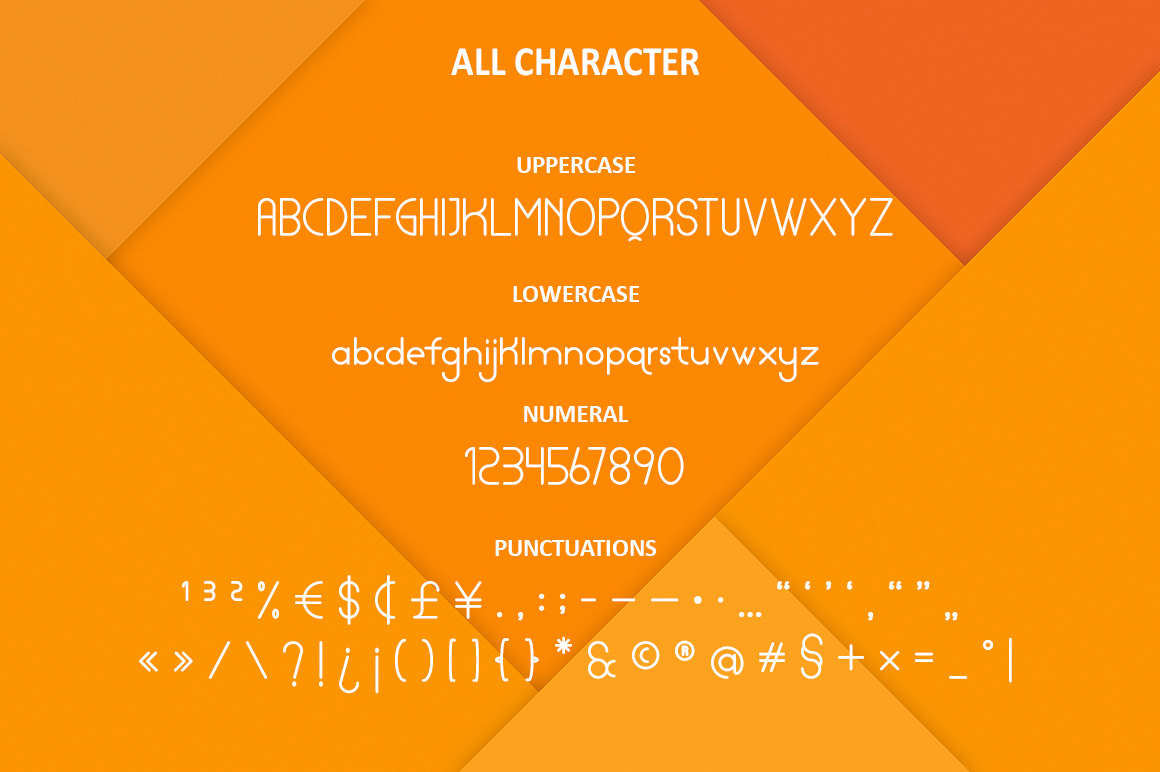
Introducing: Lamborgini! A modern sans serif font with monoline style and powerfull. With 20 amazing fonts, Lamborgini is perfect for photography, watermark, social media posts, advertisements, logos & branding, invitation, product designs, label, stationery, product packaging, special events or anything that need powerfull taste.